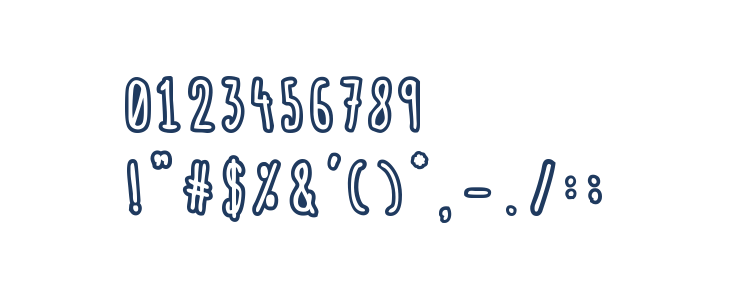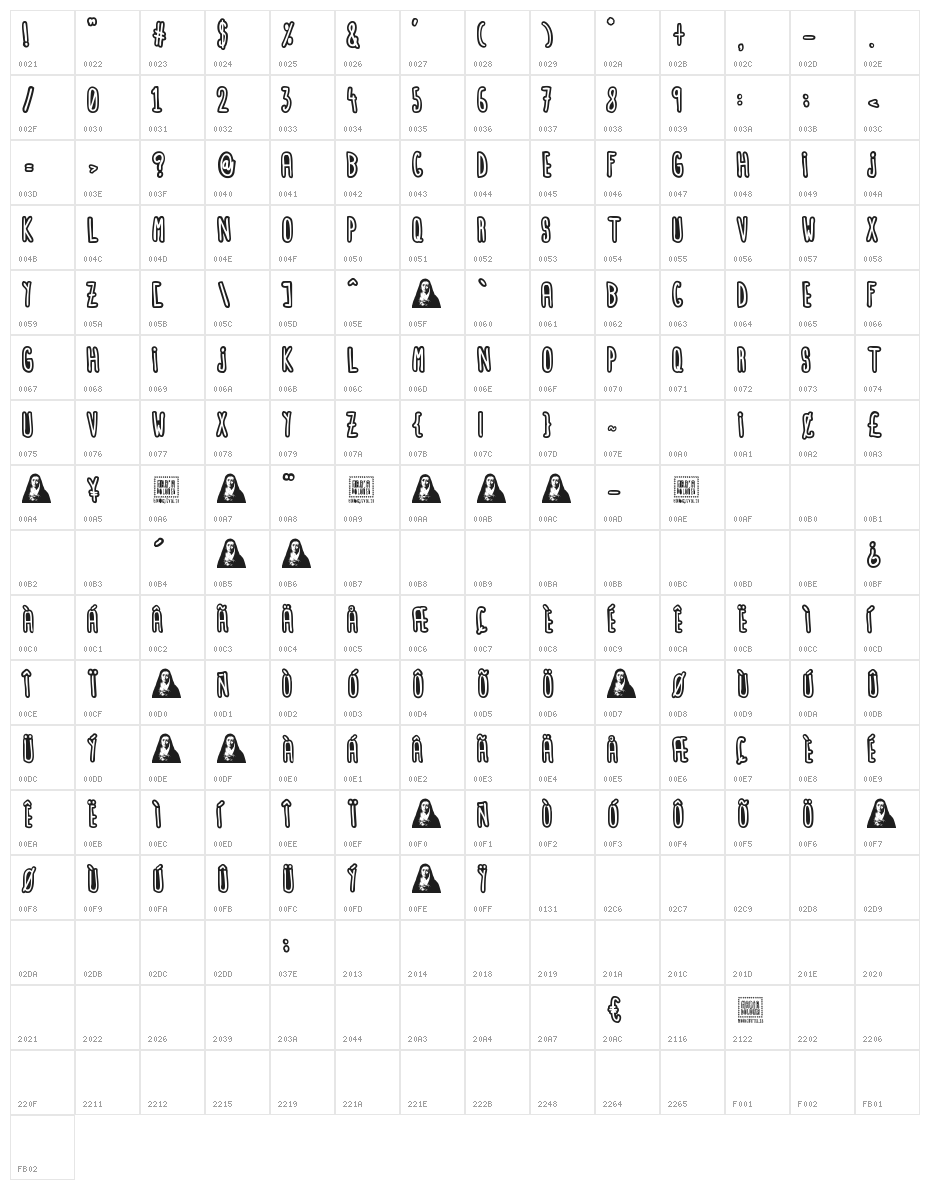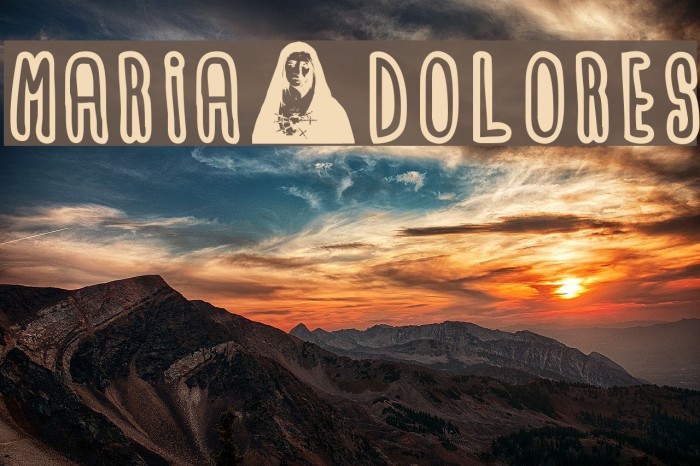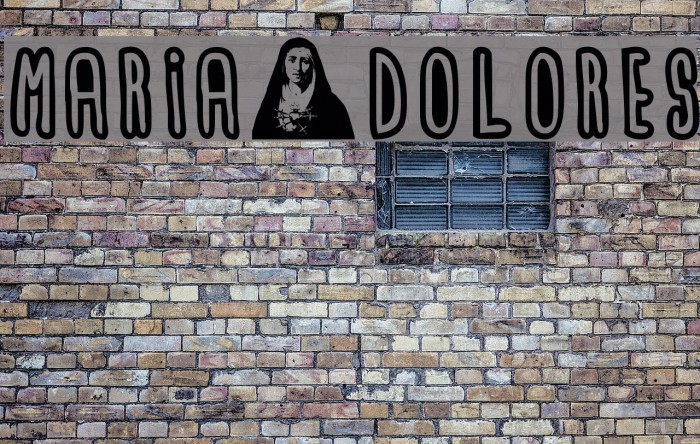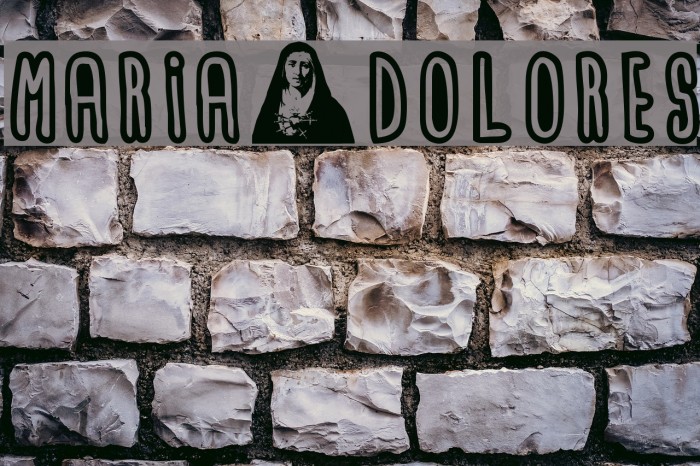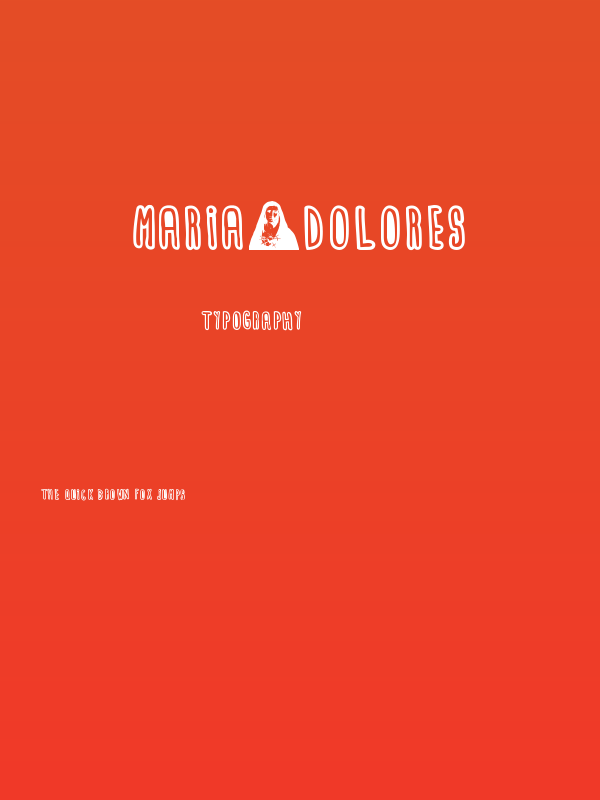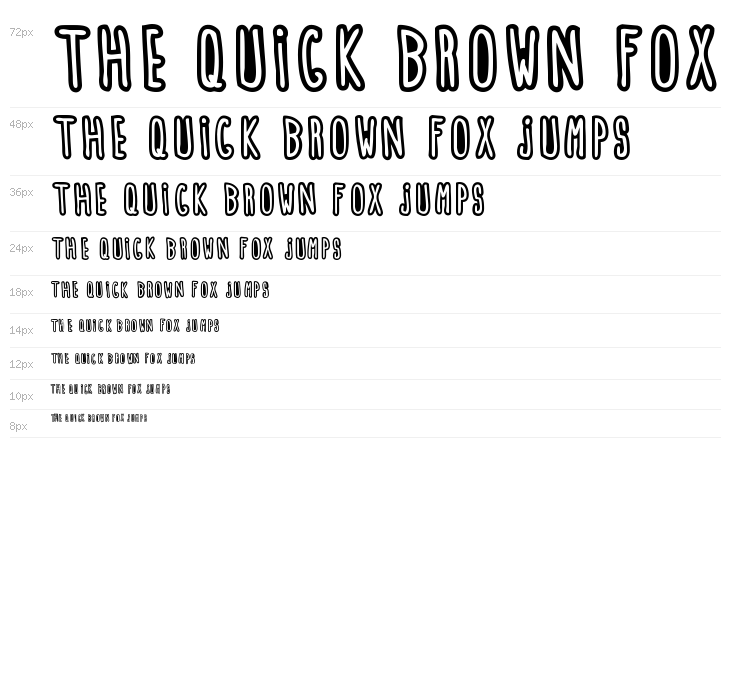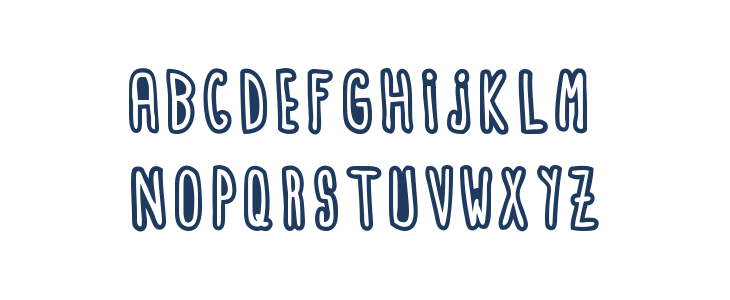
maria_dolores Font
maria_dolores Description
This playful and bold font features a hand-drawn, outlined style that gives it a unique and eye-catching appearance. Each character is surrounded by a thick black outline, creating a striking contrast against the white interior. The letters are slightly irregular, adding to the whimsical and informal feel of the font. The uppercase and lowercase letters maintain a consistent style, with rounded edges and a casual, friendly look. The numbers and special characters follow the same design principles, ensuring a cohesive appearance across all elements. This font is perfect for projects that require a fun and engaging aesthetic, such as children's books, posters, or playful branding.
| Overall Style | Playful, Whimsical, Hand-drawn |
| Proposed Projects | Ideal for children's books, playful branding, posters, and creative invitations. |